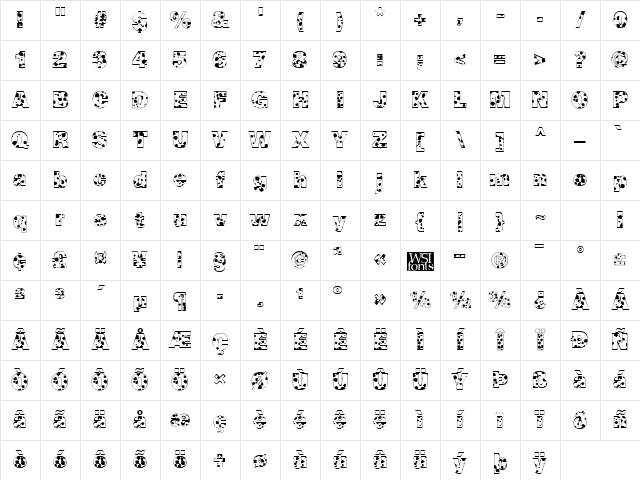
Cow-Spots Regular Free Font
Cow-Spots Regular
Cow-Spots Family
Complete Cow-Spots Regular glyph index. Displaying only characters natively supported by Cow-Spots Regular font.
Design Context for Cow-Spots
Cow-Spots is a composed and adaptable typeface that performs quietly and consistently across a wide range of design contexts.